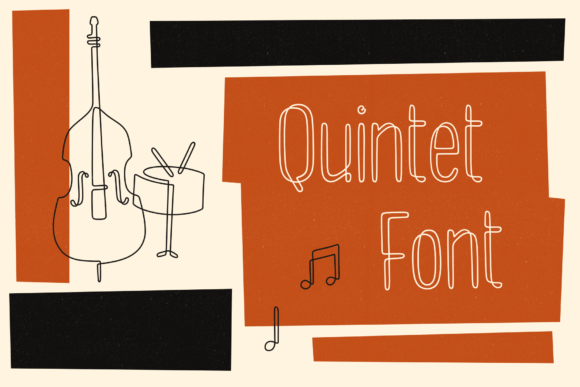
Take a captivating journey into the world of fonts with Quintet, a display font designed by laurenashpole that will leave you breathless! Let your eyes dance across its slender, curvaceous strokes, reminiscent of an enchanting symphony that whispers tales of elegance and grace. Gaze upon its beauty as it graces your screen, captivating your senses with a fusion of retro allure and modern chic. Quintet is more than just a font; it's an artistic masterpiece that transforms ordinary designs into captivating spectacles!
With Quintet, you hold the key to unlocking a world of endless creative possibilities. Picture yourself crafting logos that exude a timeless charm, with characters that seem to leap off the page, beckoning viewers to immerse themselves in your brand's story. Create invitations that evoke the magic of yesteryear, transporting recipients to a realm where dreams take flight. Unleash the creativity within you as you design posters that command attention, capturing the spirit of music with every stroke.
Go beyond simple text and adorn your designs with the exquisite illustrations included in this package. These abstract musical instruments, rendered with exquisite detail, will add a touch of whimsy and enchantment to any project. Let the saxophone's smooth curves and the trumpet's regal posture bring your designs to life, creating a visual symphony that will leave a lasting impression.
Quintet isn't merely a font; it's a gateway to a world where imagination reigns supreme. It's a tool that empowers you to craft designs that resonate with your audience, touching their hearts and inspiring their minds. Seize this opportunity to elevate your creative projects to new heights, leaving a lasting impression that whispers of sophistication, elegance, and timeless artistry. Embrace Quintet today and unlock the endless possibilities that await you!